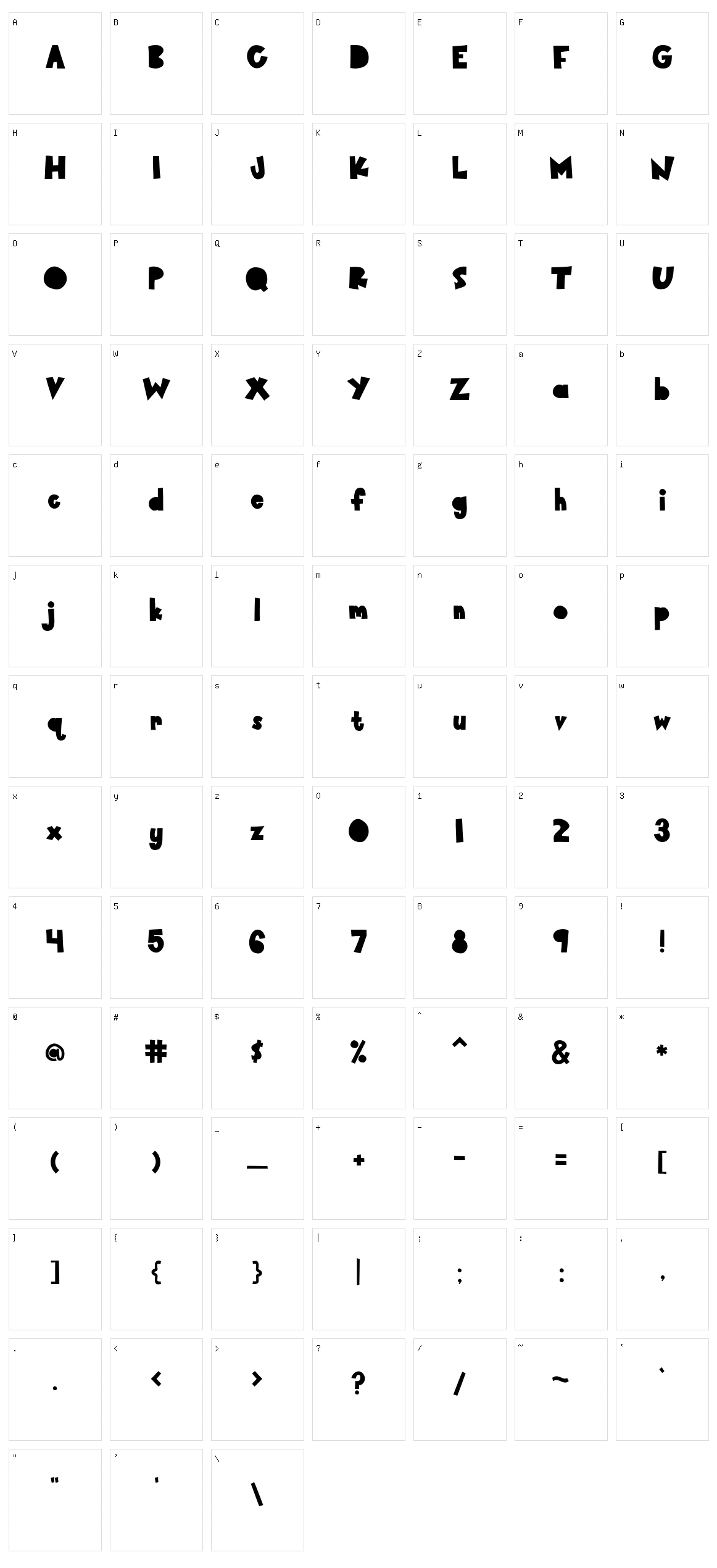
The free font Paper Cutout is carefully designed by Kimmy Kirkwood, showcasing a thoughtful balance of creativity and usability and falls under the Cartoon font style. When you download the ZIP file, it contains only 19.77 KB of font files, making it lightweight and quick to download. Please review the license details below to understand permitted usage and distribution rights. If license information is not available, we recommend using this font for personal projects only or contacting the author directly for commercial usage permissions.